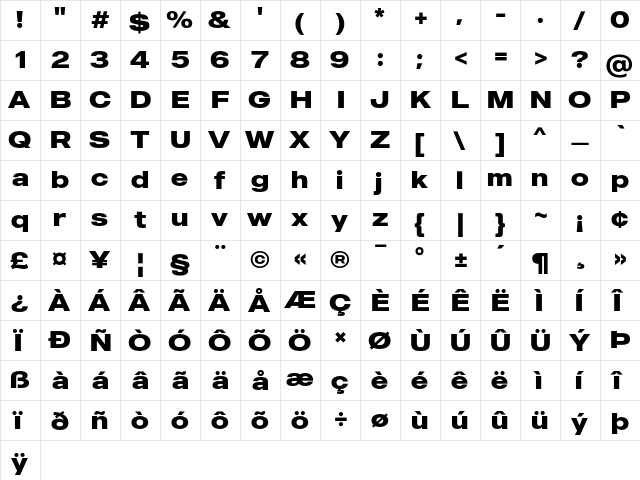
MADE Outer Sans Bold
| Foundry | MadeType |
| Designer | MadeType |
Design Context for MADE Outer Sans Typeface
MADE Outer Sans takes a measured approach to typography — its balanced proportions and neutral character make it a reliable workhorse for both digital and print work. Its bold stroke weight gives it real presence on the page.